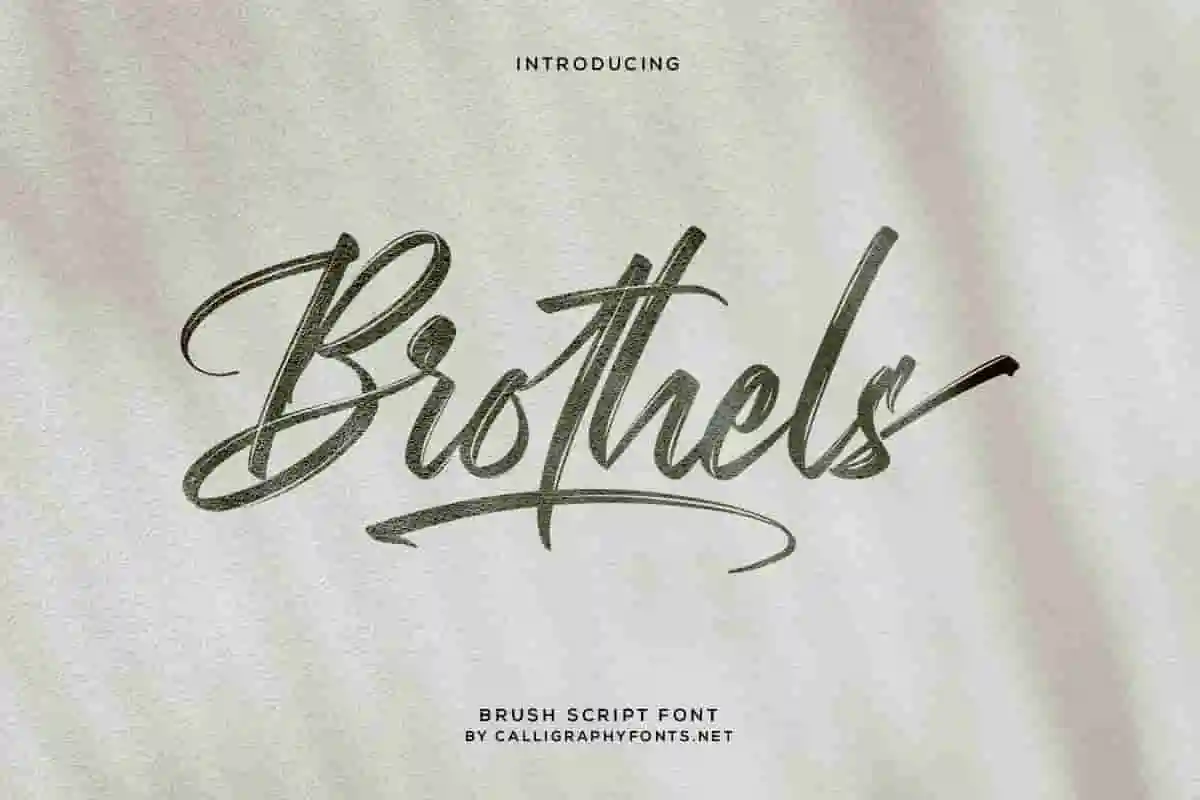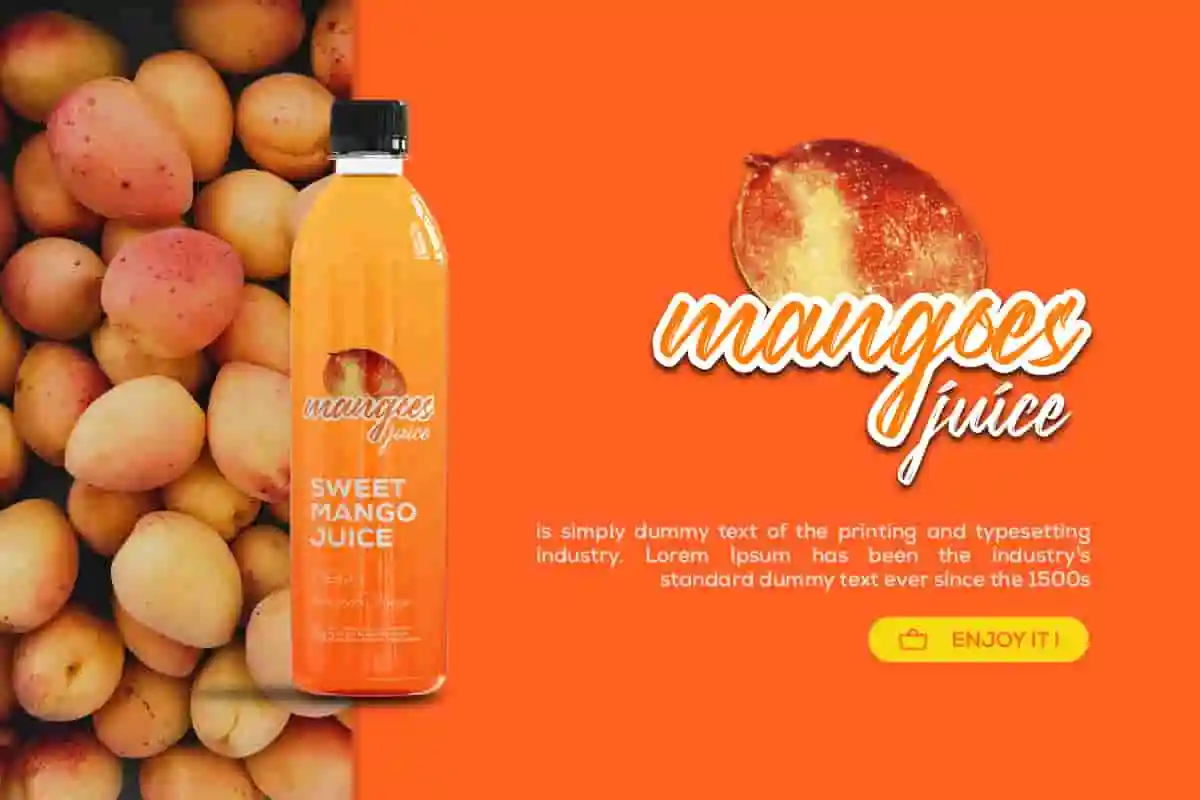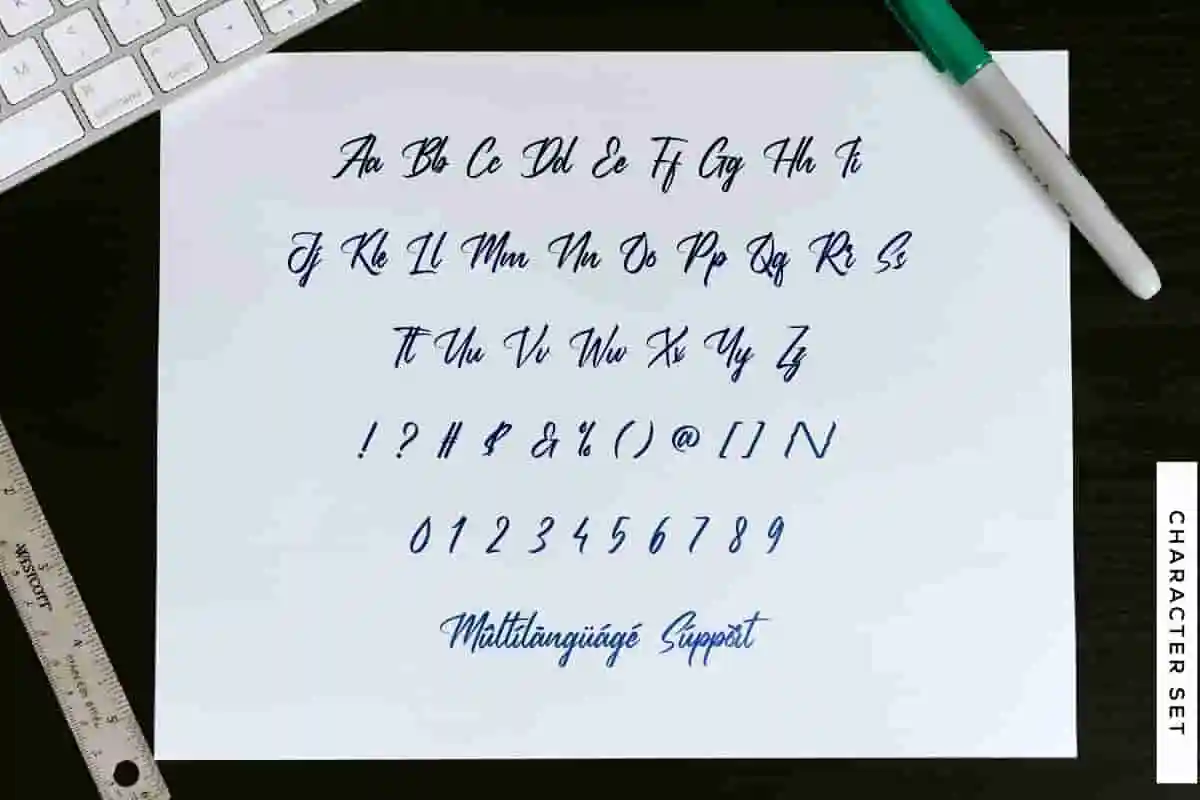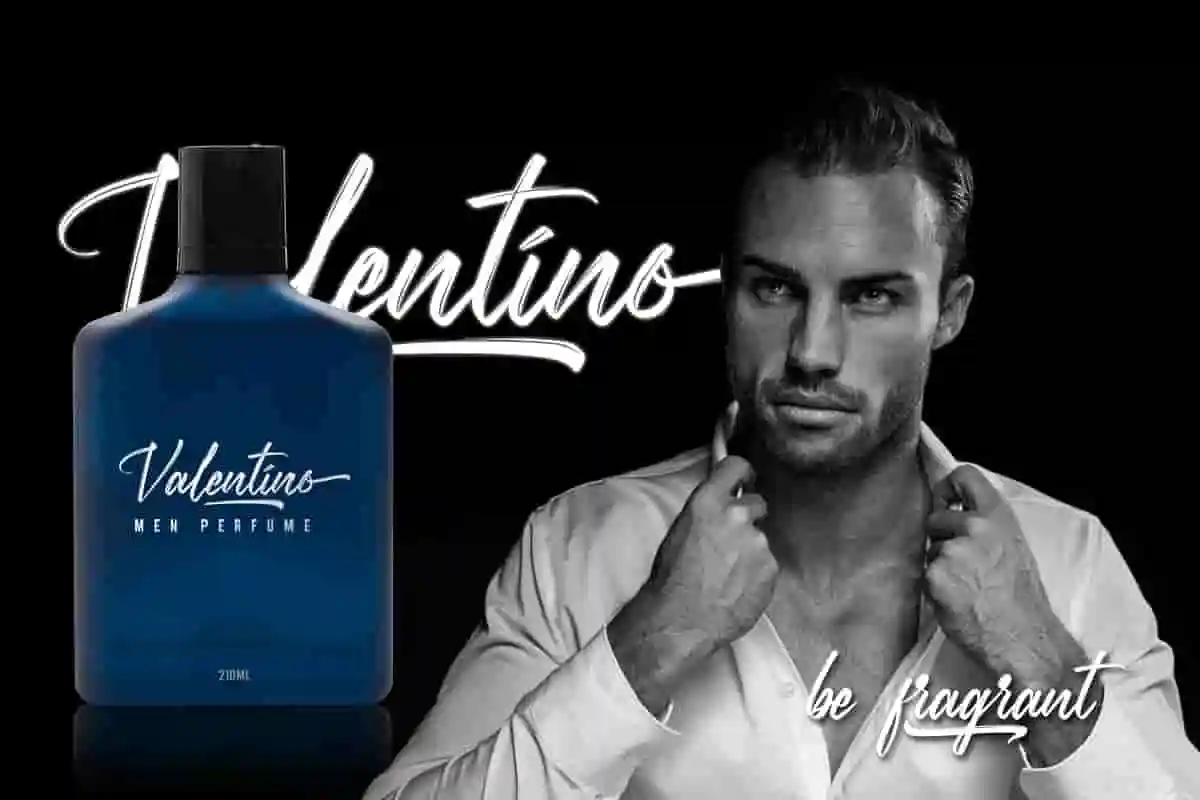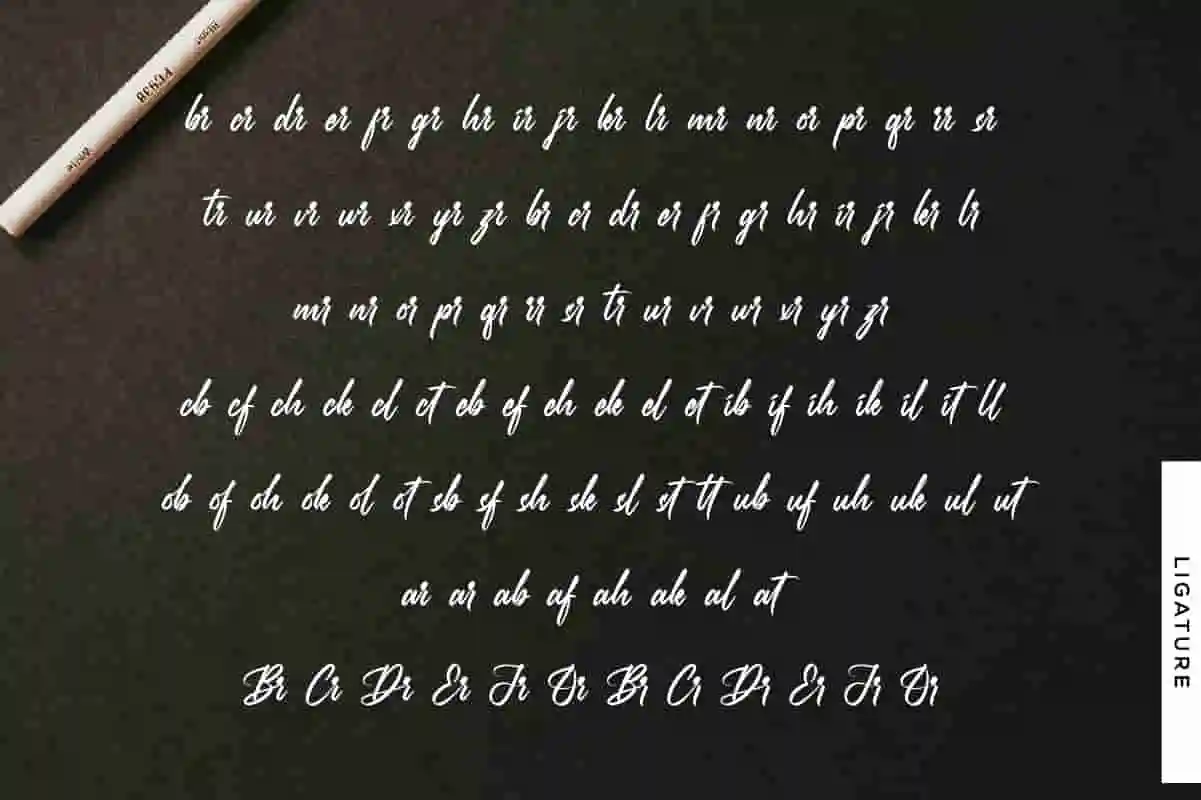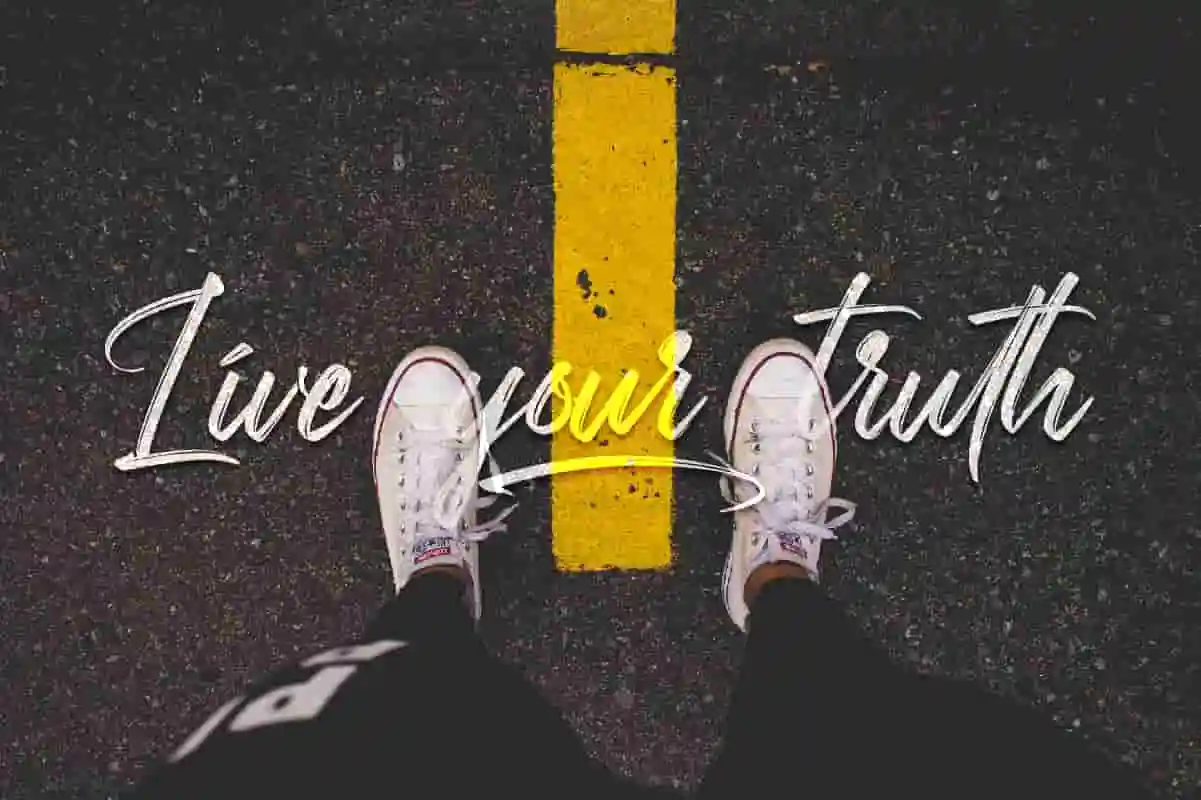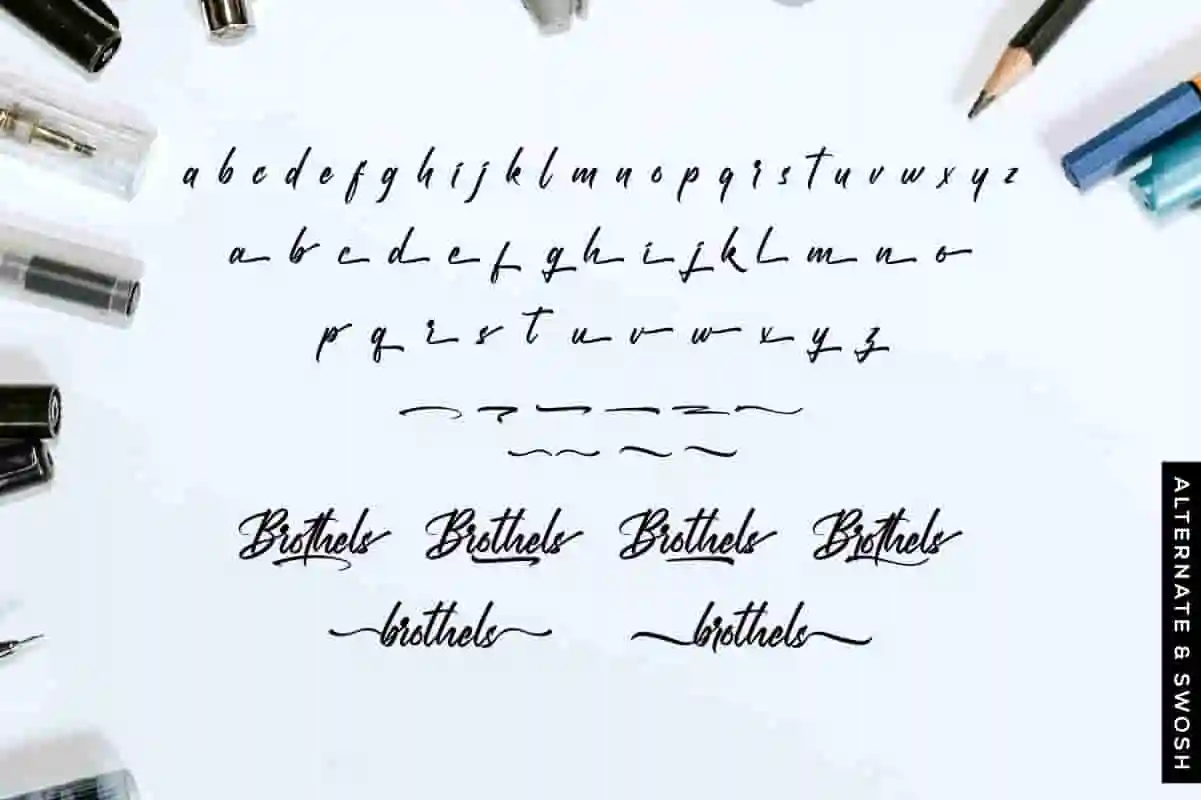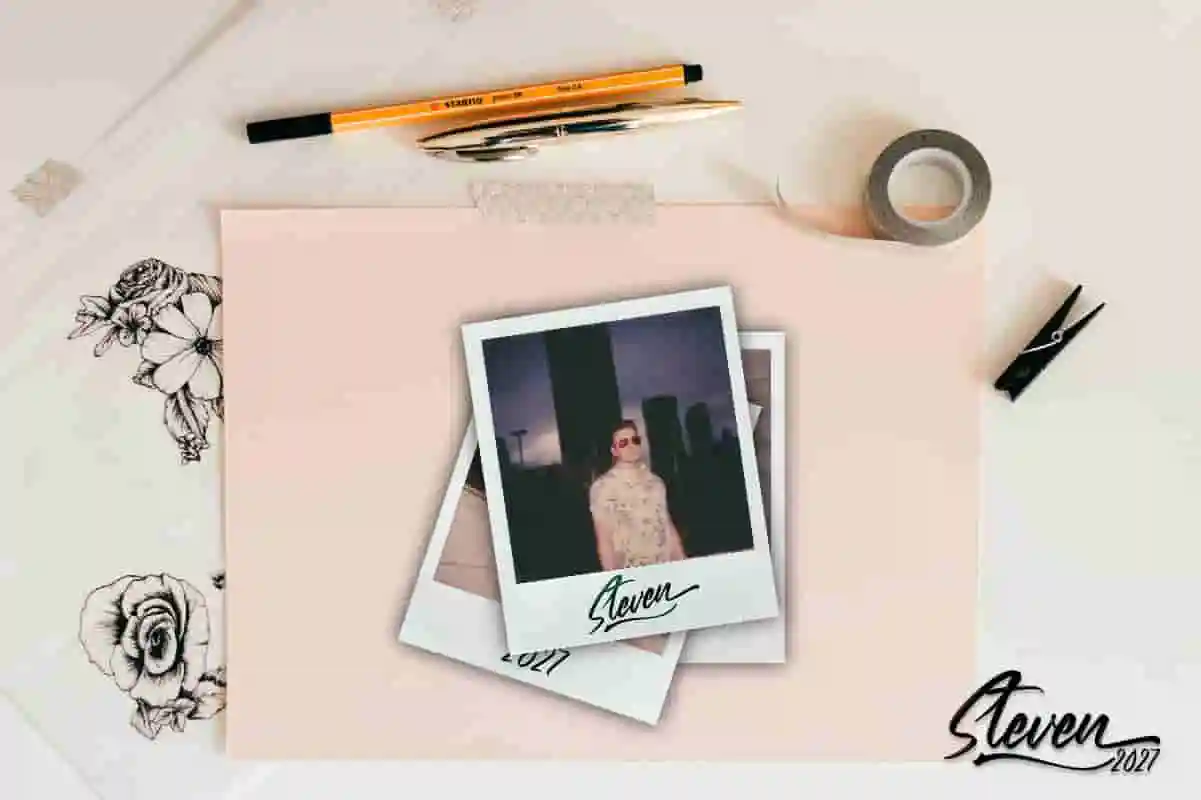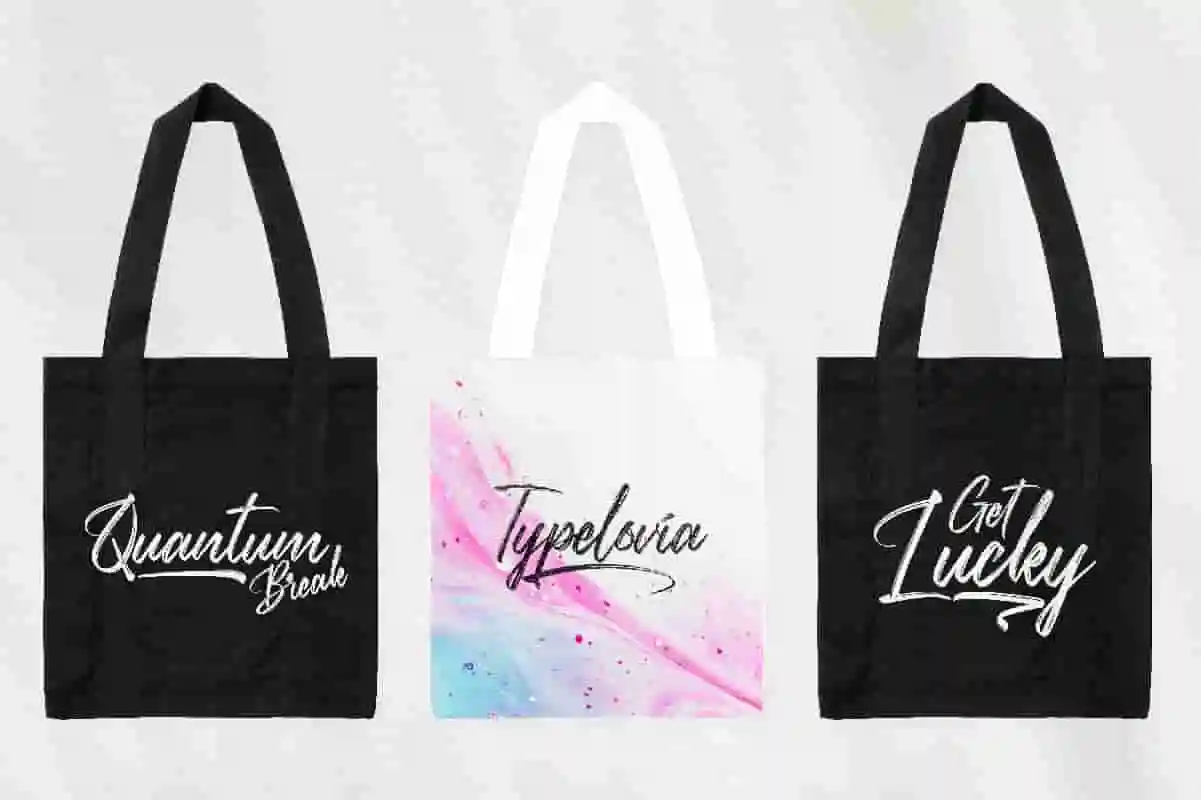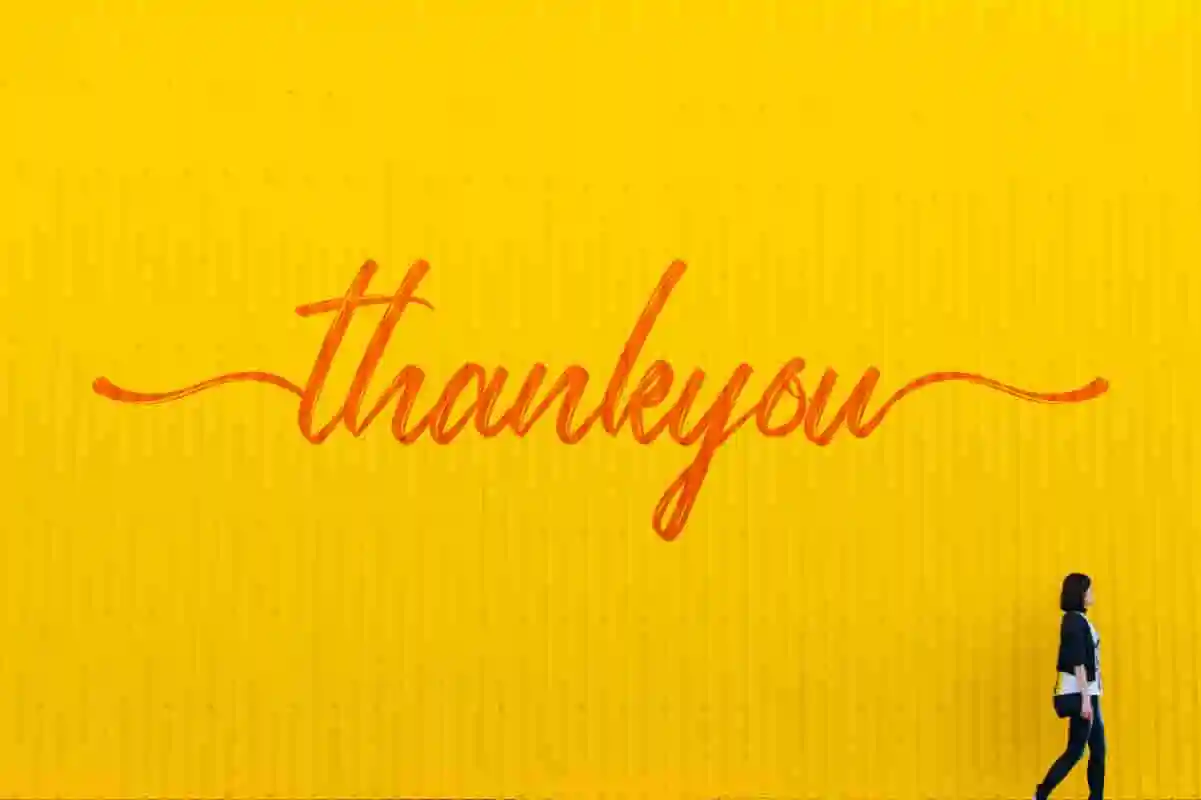
Brothels Brush Font
Brothels Font is a stunning brush font by CalligraphyFonts.net, Buy License to use it for Commercial purposes. Awesome for branding projects, homeware designs, product packaging – or simply as a stylish text overlay to any background image.
Brothels is a brush font with a unique texture; delivering a stylish script which is guaranteed to add an eye-catching appeal. The style of this font are stylish, classic, elegant, a fresh new handwritten brush script with a touch of class, and of course, outstanding looks 🙂
Introducing Brothels Brush Font, a bold, handcrafted typeface designed to add fierce energy and personality to your creative projects. With rough textures, uneven strokes, and a natural flow, this font captures the raw power of brush lettering at its finest.
Whether you’re designing streetwear, album covers, posters, branding, or social media graphics, Brothels brings an edgy, artistic vibe that demands attention. It’s not just a font—it’s a statement.
Brothels Font tested Work on PC & Mac. Brothels font is inspired by old style and combination with Hand Lettering style. We made with personality touch every single curve. I hope this can make inspire you from your work. will be awesome for wedding, logos, handwritten quotes, product packaging, header, poster, merchandise, social media & greeting cards. Also great for branding projects, homeware designs, product packaging – or simply as a stylish text overlay to any background image.